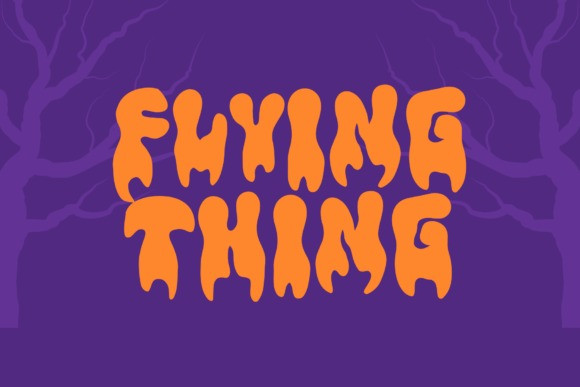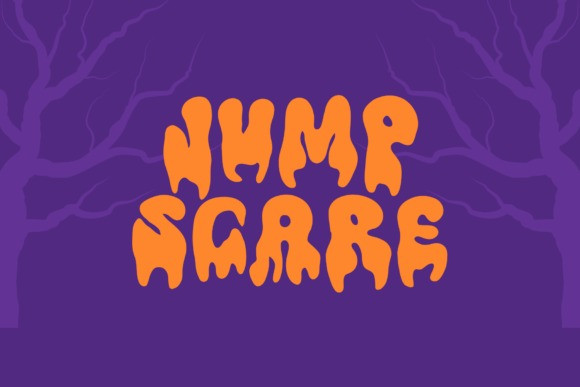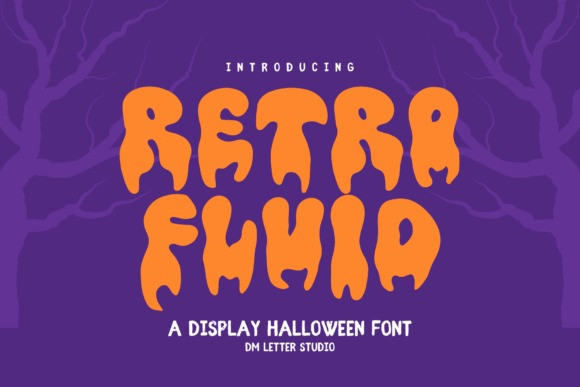
Retro Fluid Font
Retro Fluid Font pours vintage energy into smooth, flowing letterforms. Curves feel soft and bold at once. Lines connect like ink on glossy posters. Because the shapes stay open, your titles read fast on shirts, stickers, posters, packaging, and thumbnails. Use it for music covers, soda-pop labels, summer promos, and playful brand logos. Moreover, Retro Fluid loves gradients, glow, and subtle grain, so even quick mockups look finished.
Where Retro Fluid Font shines
Set punchy phrases like Good Vibes, Sunset Mix, or a short brand name. Then add layered outlines, soft shadows, or gel highlights for depth. Since spacing is tuned for headlines, layouts come together in minutes. As a result, you can build full bundles for printables, POD, and social reels without heavy tweaking. Plus, the flowing rhythm keeps names readable on tags and small thumbnails.